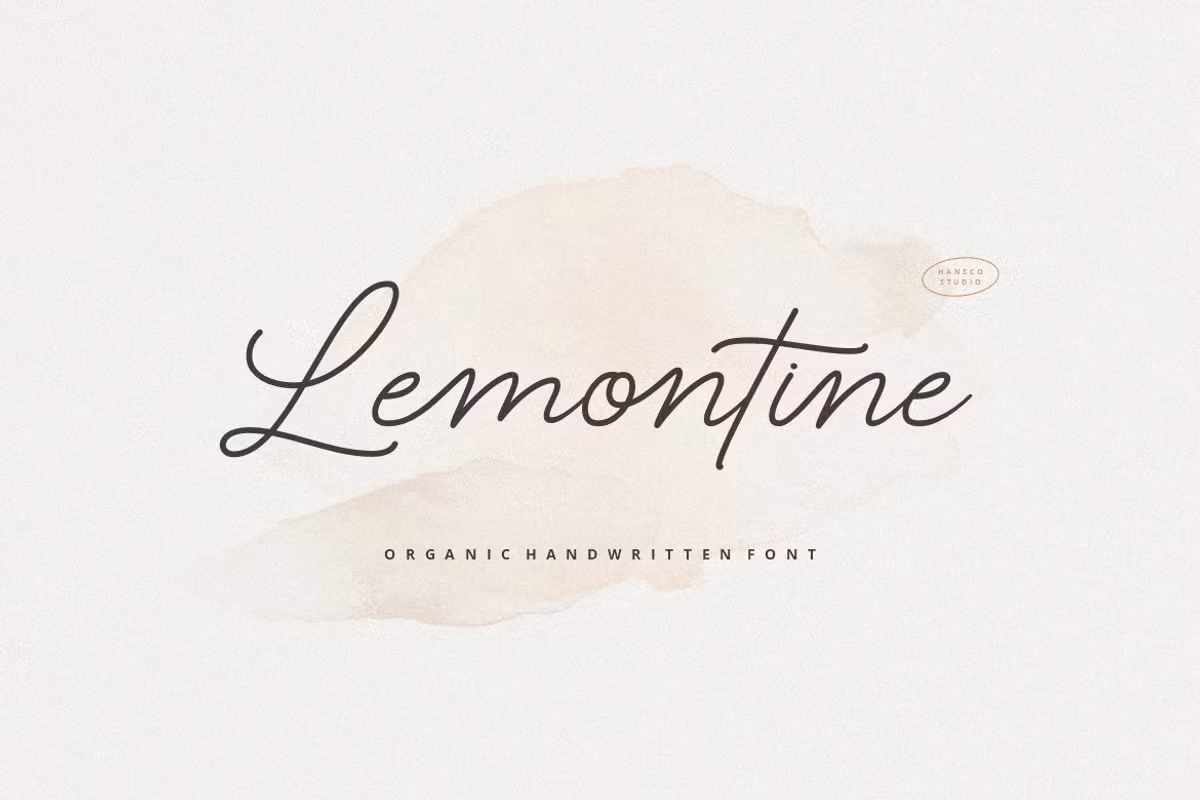
Lemontine Font Free Download is a beautiful, monoline script typeface designed for a clean and elegant look. With its smooth, continuous strokes and delicate curves, Lemontine is perfect for wedding invitations, branding, product packaging, social media graphics, and other projects that require a refined, modern aesthetic.
This font features uppercase and lowercase letters, numerals, punctuation, and a clean monoline design that keeps your typography sleek and minimal. The simplicity of its design makes it versatile for both formal and casual applications.
Whether you're working on a stylish logo, an invitation suite, or a chic product label, Lemontine Font Free Download adds a polished, sophisticated touch to your typography. Feel free to use it for personal or mockup projects, and make sure to purchase the appropriate license for any commercial use. Enhance your designs with the graceful elegance of this monoline script font.